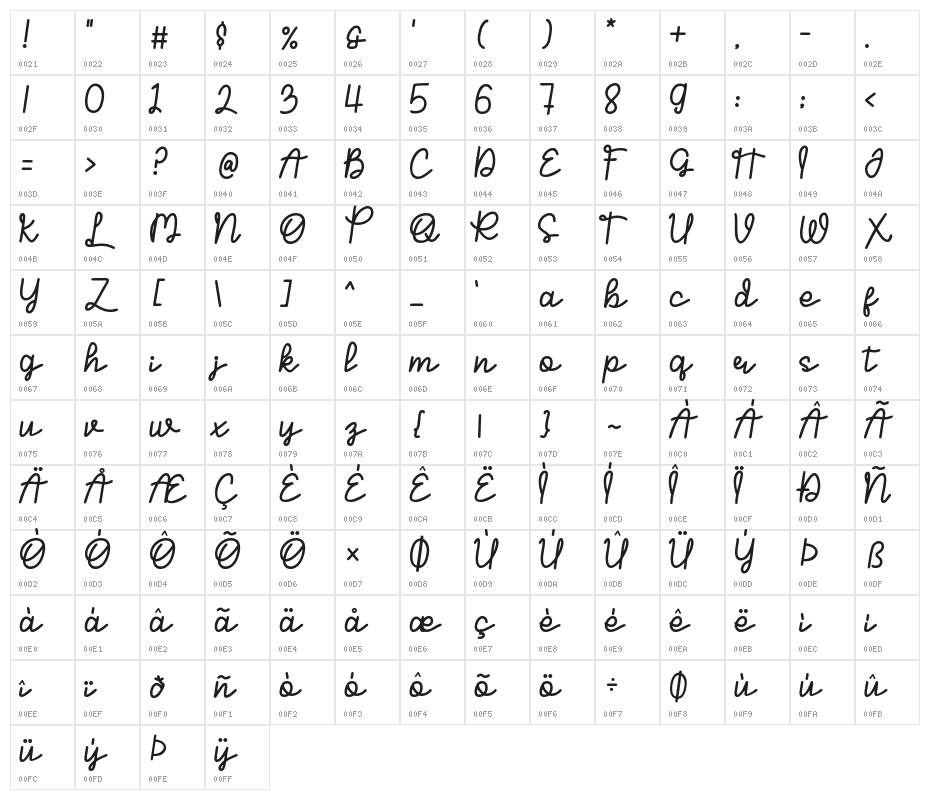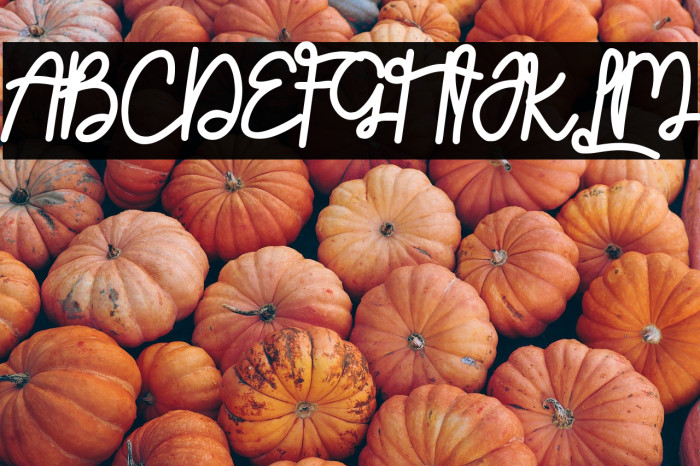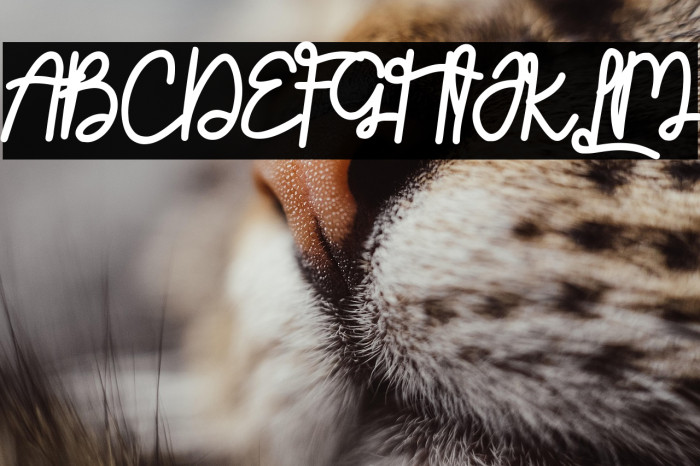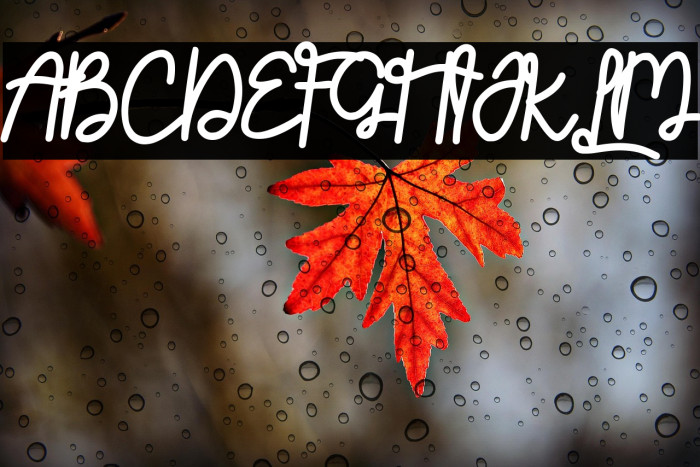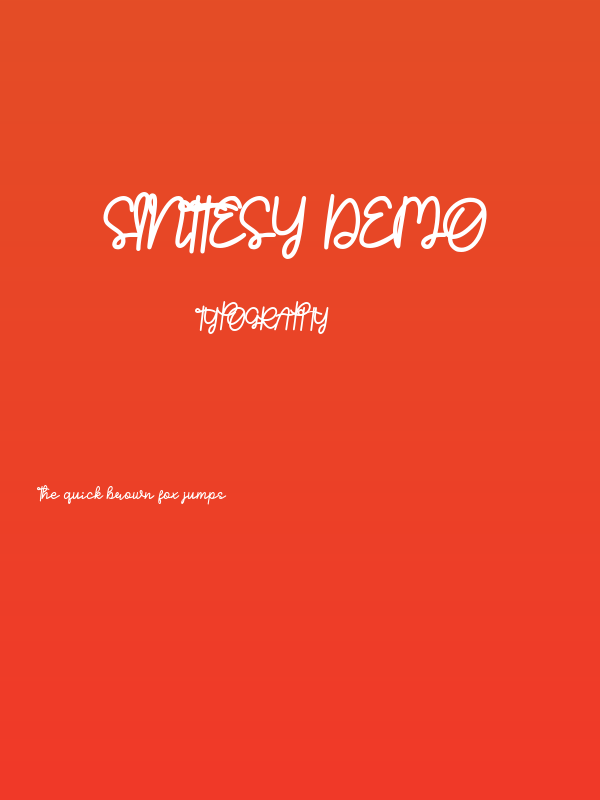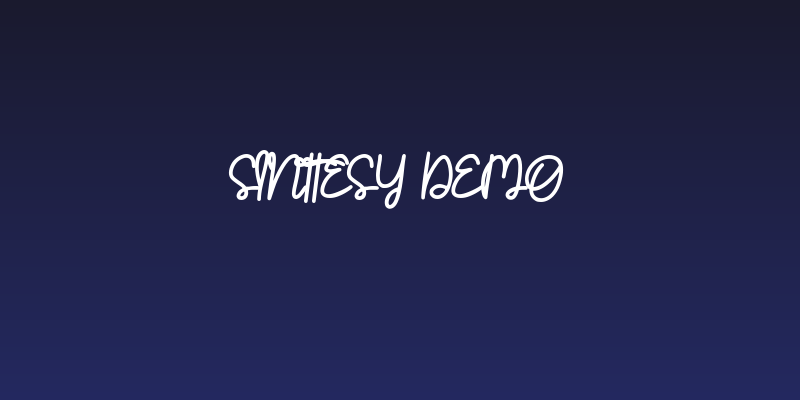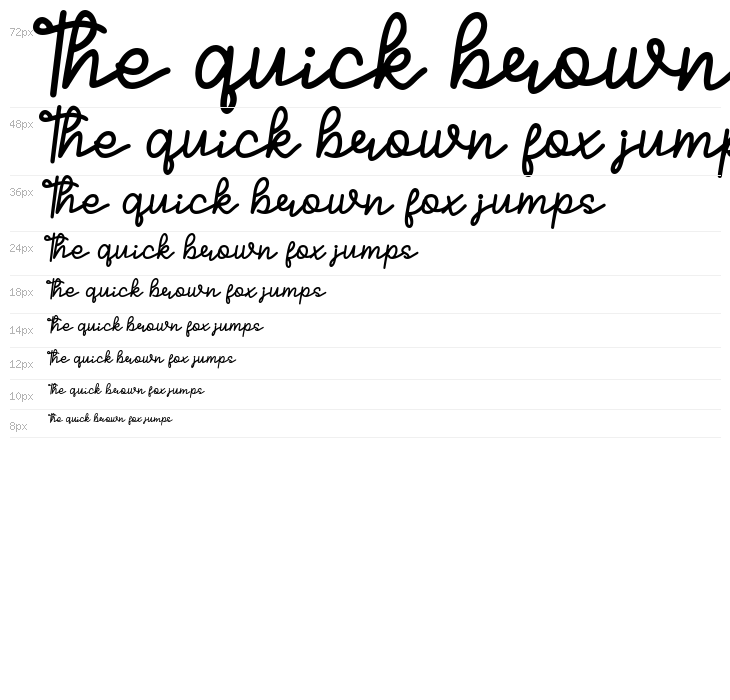
Sinttesy Demo Font
Sinttesy Demo Description
This font features a playful and casual handwritten style, characterized by smooth, flowing curves and a consistent stroke width. The letters are interconnected, giving it a cursive appearance that mimics natural handwriting. The uppercase letters maintain a uniform height, while the lowercase letters have a slight slant, adding to the informal and friendly feel. The numerals and special characters are designed to match the overall aesthetic, ensuring cohesion throughout. This font's legibility and charm make it suitable for various creative applications.
| Use Case | Logos, Headlines, Informal text |
| Proposed Projects | Ideal for greeting cards, invitations, personal branding, and social media graphics. |